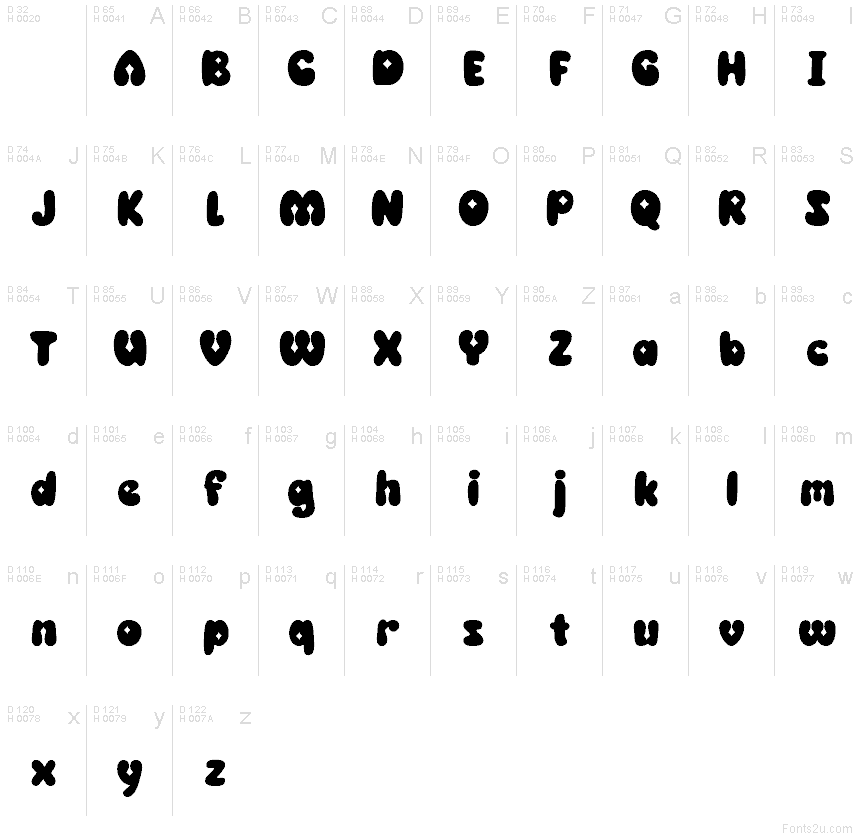
CS Mikey Regular Demo
CS Mikey font is a bold cartoon display font designed by Craft Supply Co. Quirky, bulbous, and retro-inspired are the keywords that properly describe this unique resource. When using it in your projects you’ll enjoy an overall fun, casual style that helps establish an informal communication line with your target audience or readers.
Create fantastic logos for kids’ products like toys or comic books covers and pages. Use it to write catchy titles over posters like concert posters or live entertainment event advertisements. Other uses can be packaging design, labels for food products and candies, balance sheets at points of sale in shops/stores etc.